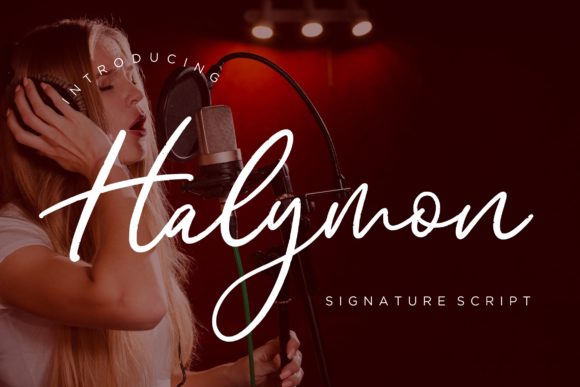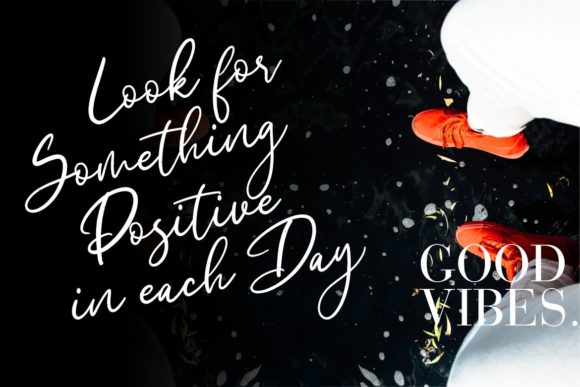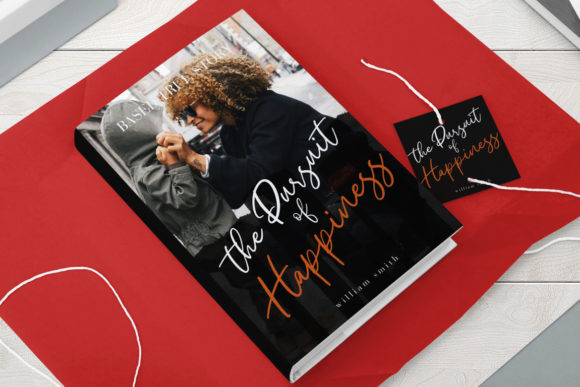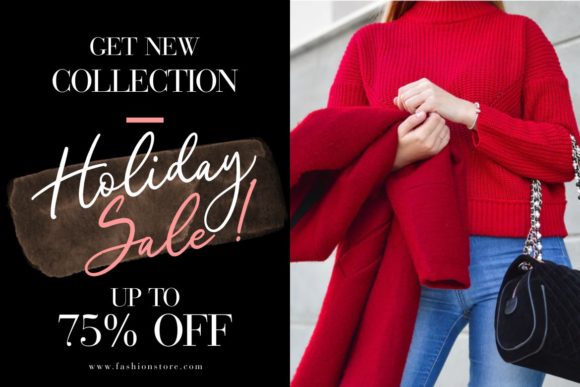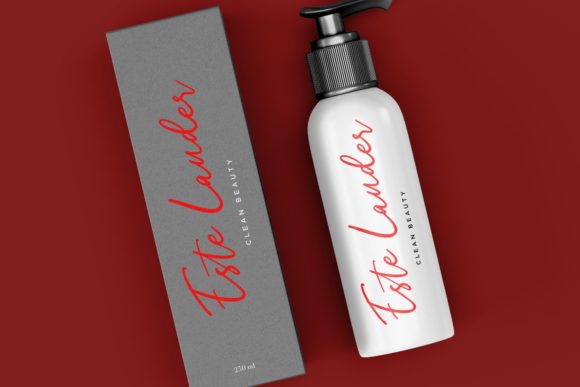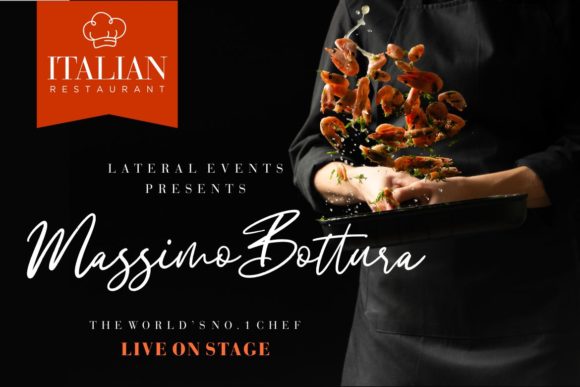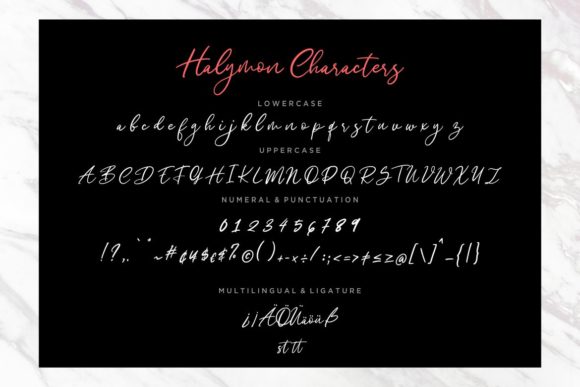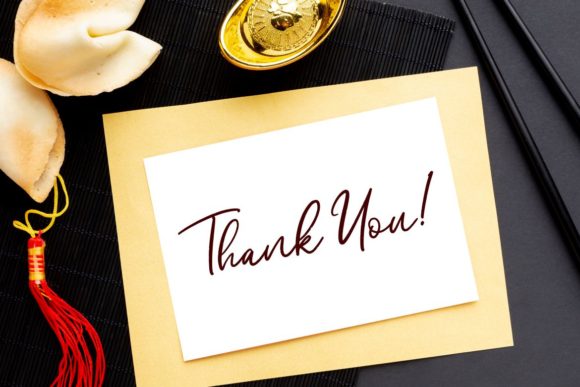
Halymon Font
About Halymon Font
Halymon is a beautiful handwritten font with a positive vibe and flowing calligraphy. Fall in love with its incredibly versatile style and use it to create spectacular designs!